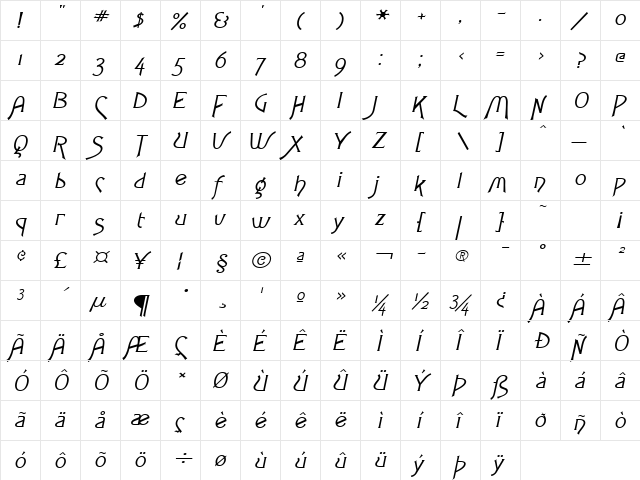
Fletch Wide Italic
Design Context for Fletch Wide Typeface
Fletch Wide offers clean, dependable letterforms without strong stylistic allegiance, making it a practical choice for designers who need flexibility. The slanted form adds forward momentum and visual energy.